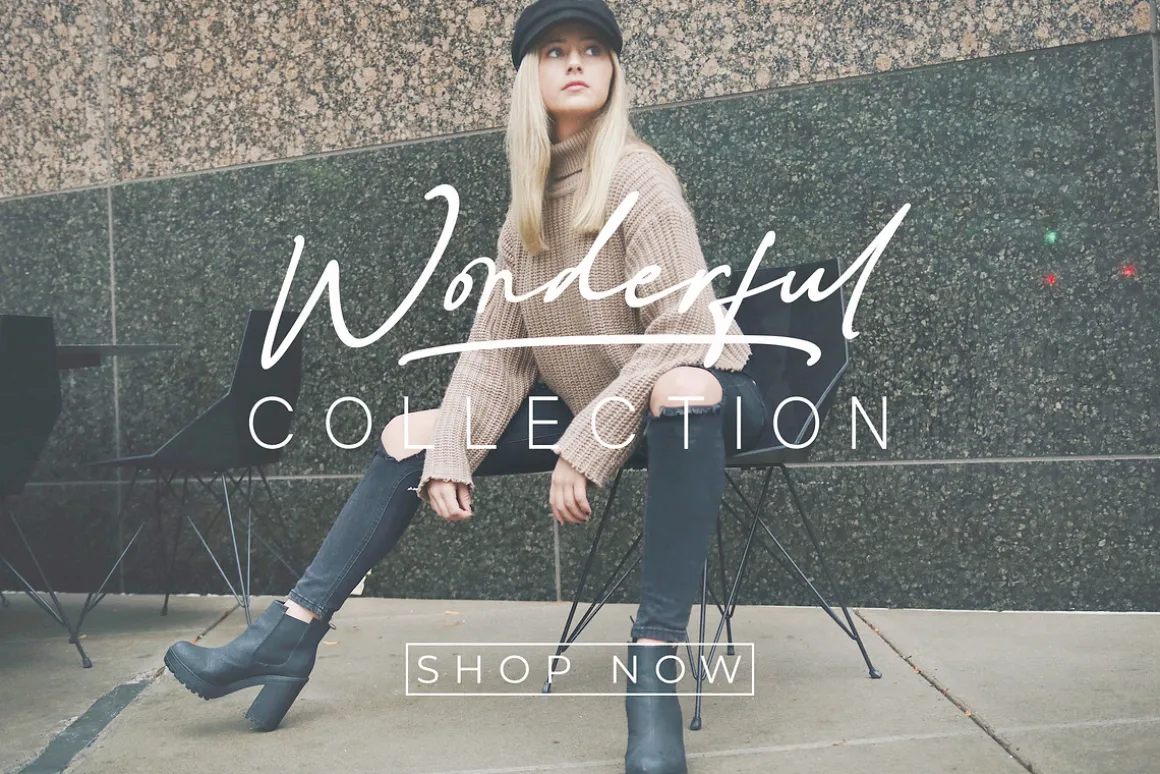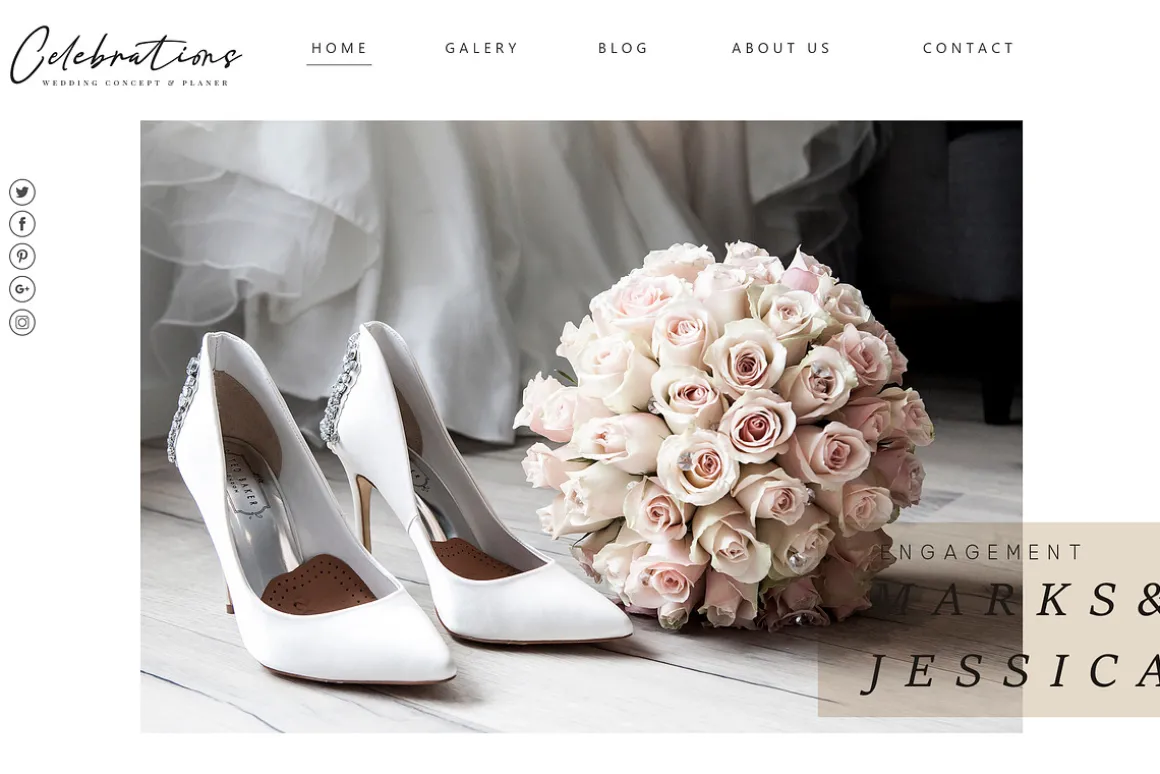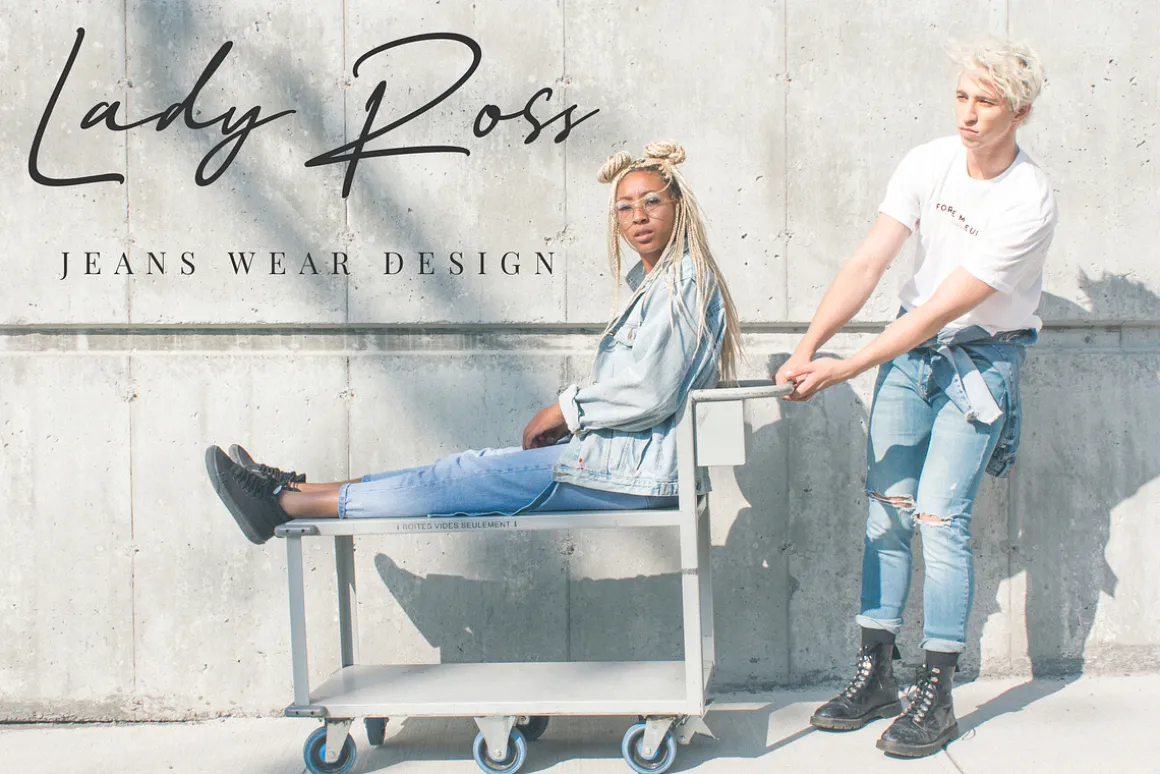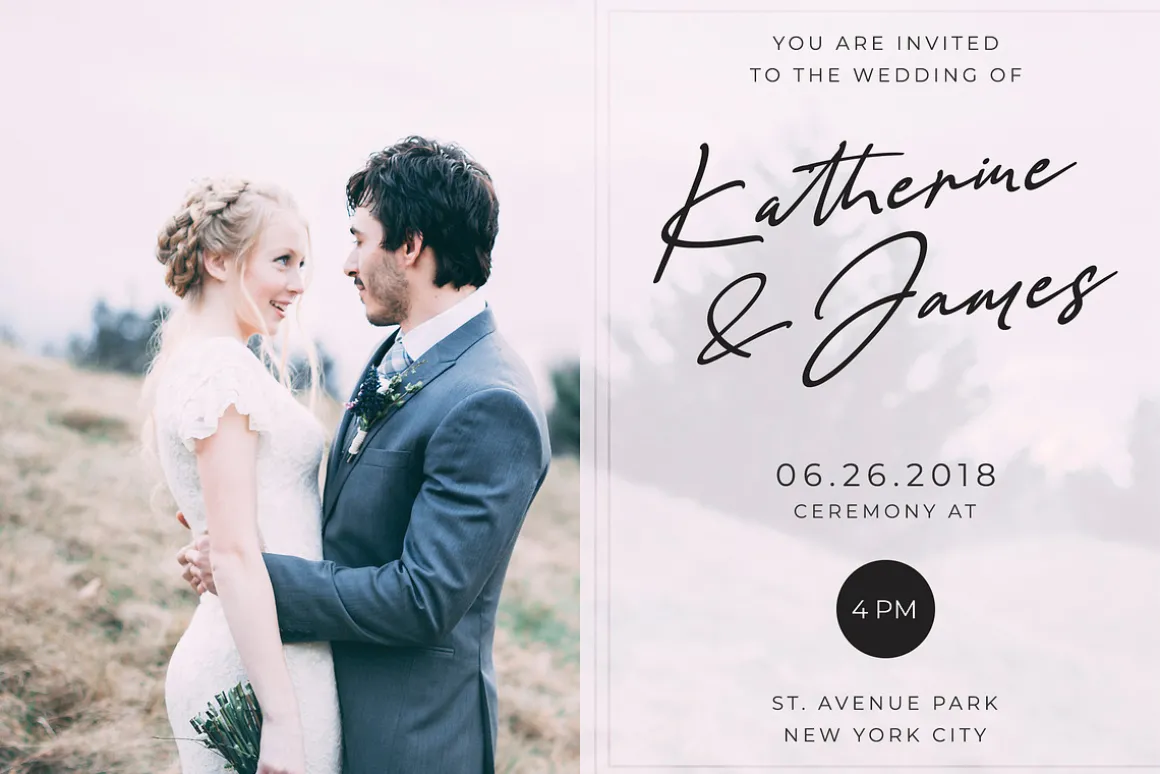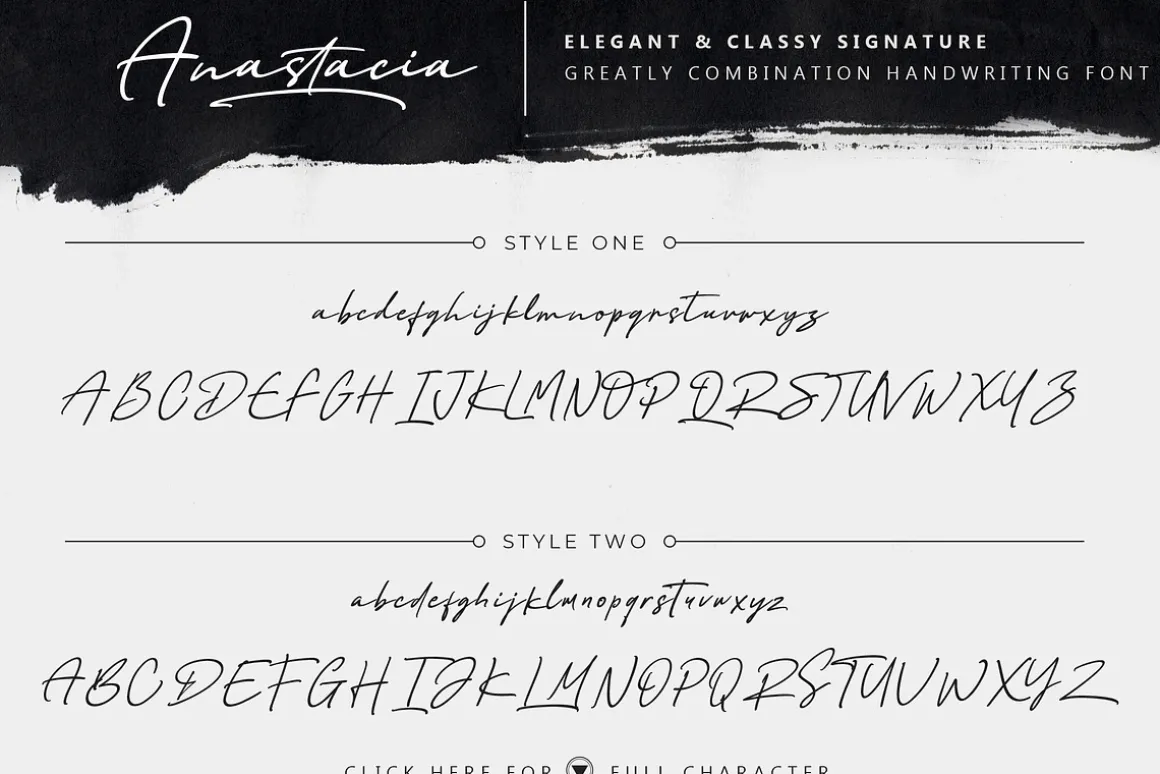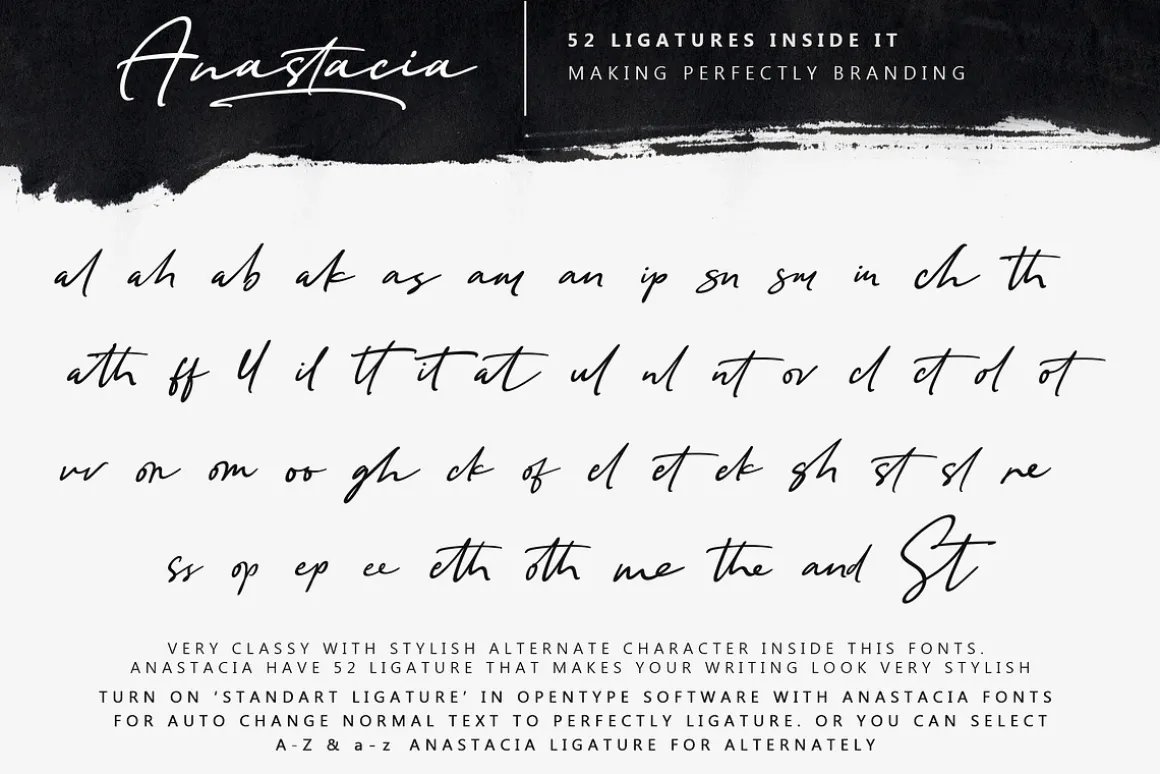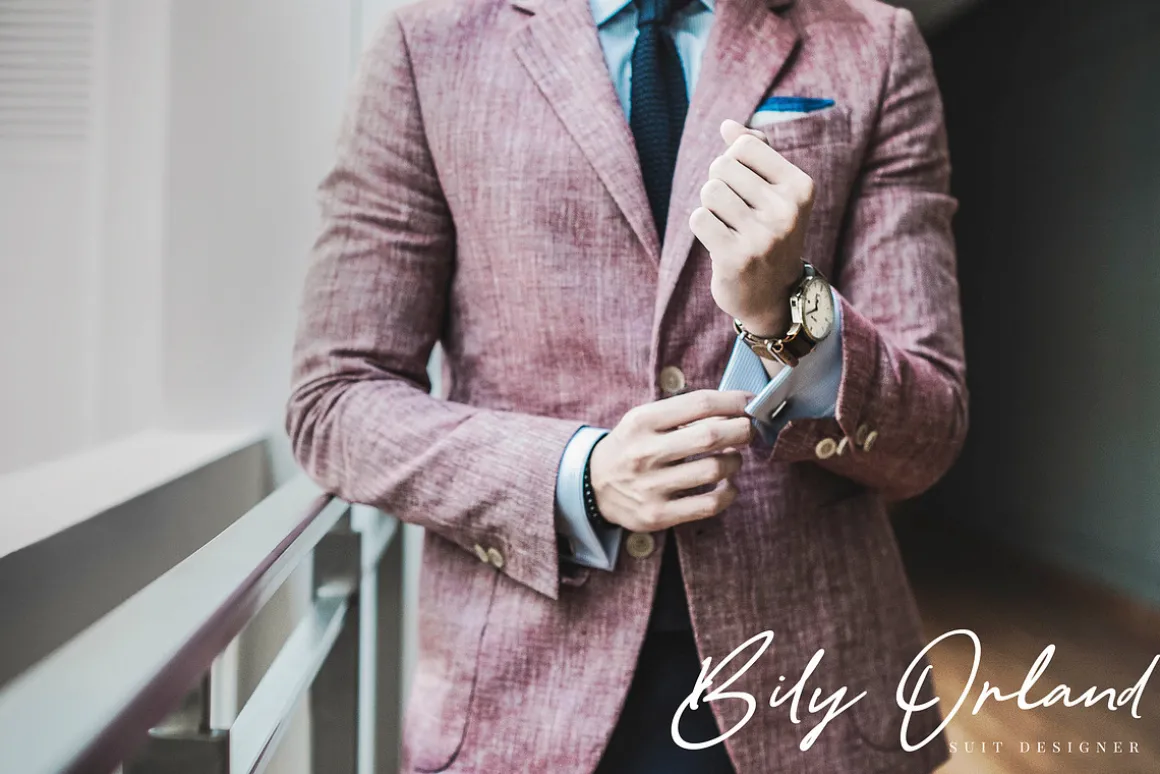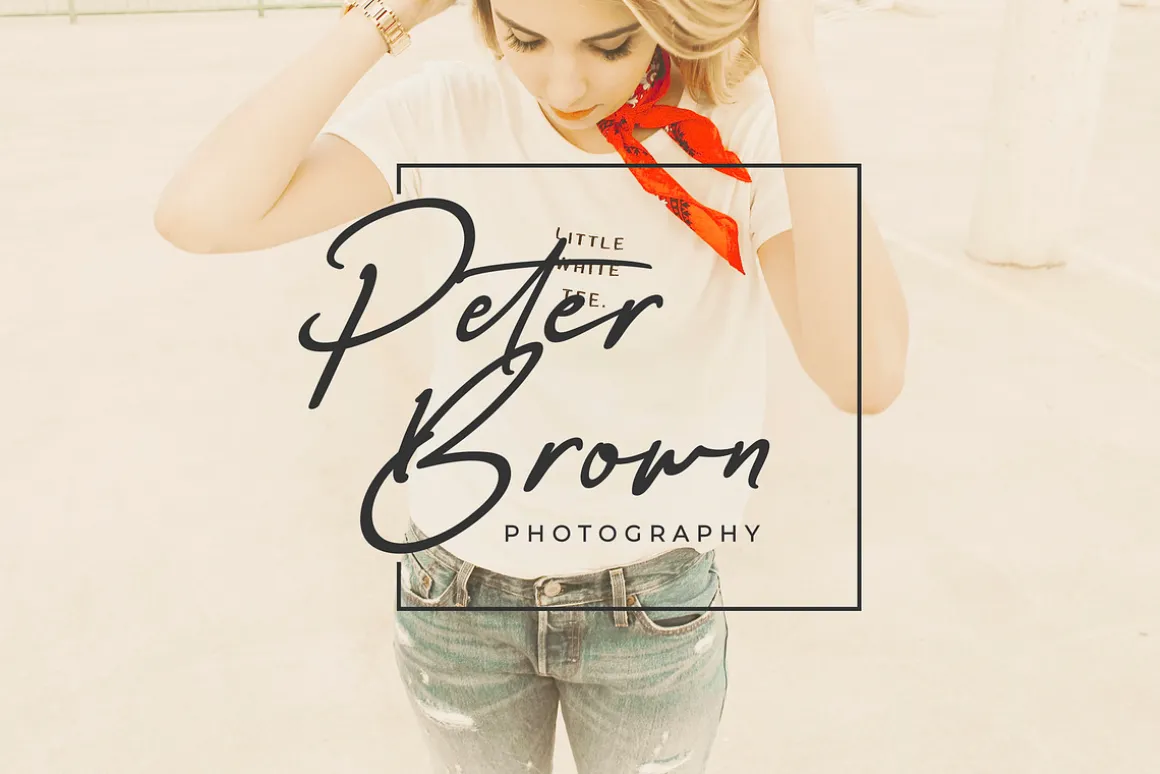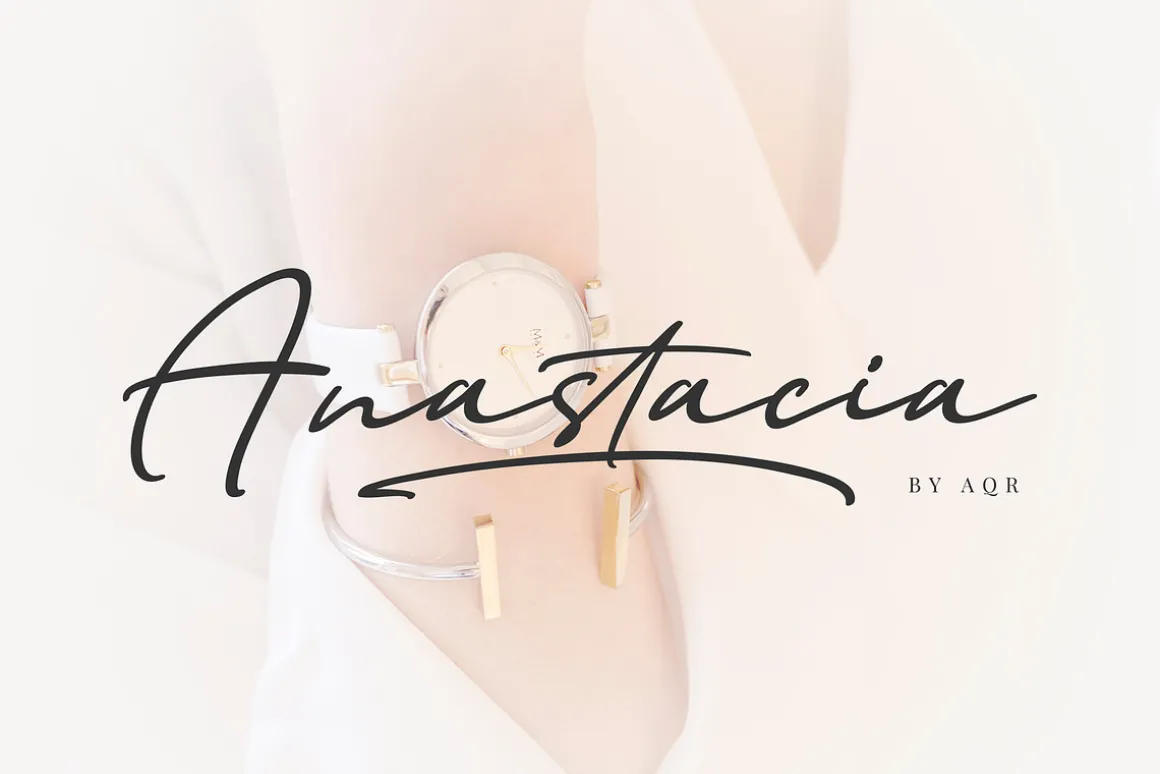
Anastacia font is made with a very natural writing techniques that look beautiful and elegant, this font is very suitable to be used to brand a product because if we write a brand name will look like our company signature. this is perfect for bloggers, trademarks, magazines, fashion, wedding invitations, greeting cards and much more
Anastacia fonts has 2 alphabetic type swashes ” A-Z and a-z ” this is perfect if used individually or in combination with others, this font also has a lot of ligature and will automatically produce a very natural writing as we write it.
Anastacia Font features with :
- Basic Glyphs, Numerals, Symbol and punctuation
- Standart Ligatures
- Multilingual Support ( ALL EUROPE LANGUANGE )
- Bonus Alphabetic Type Swashes and Ligatures